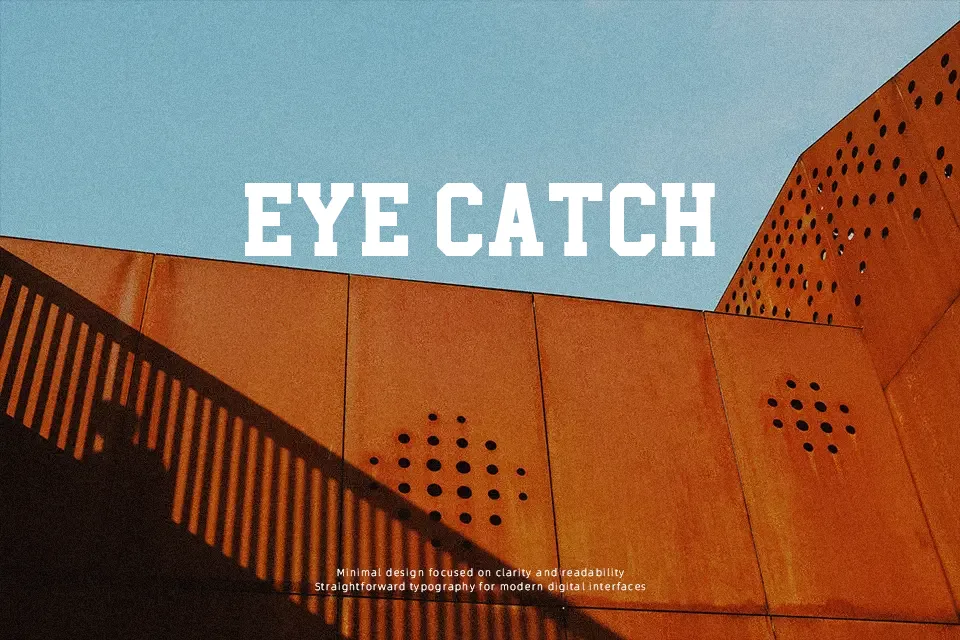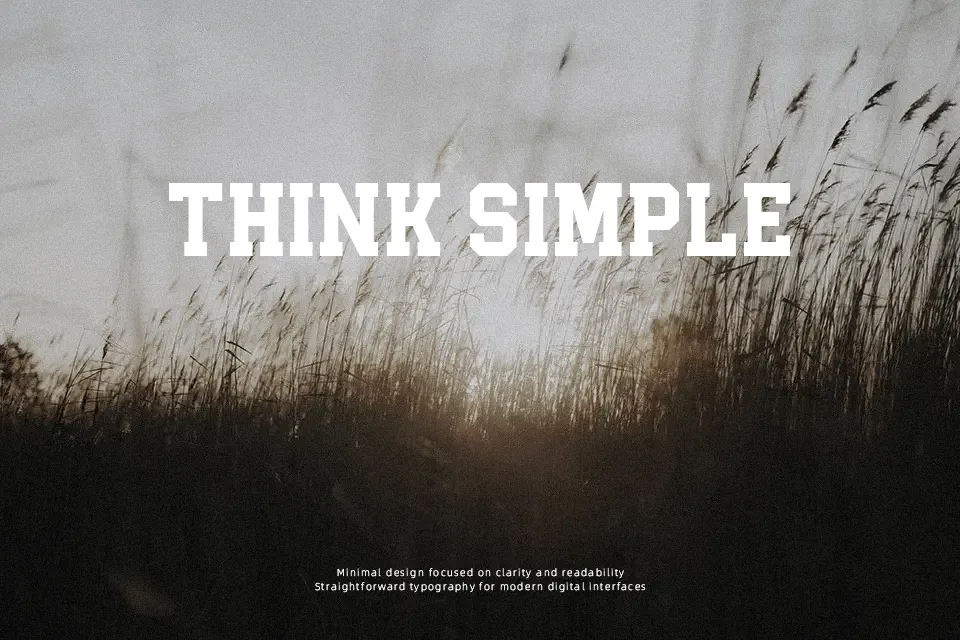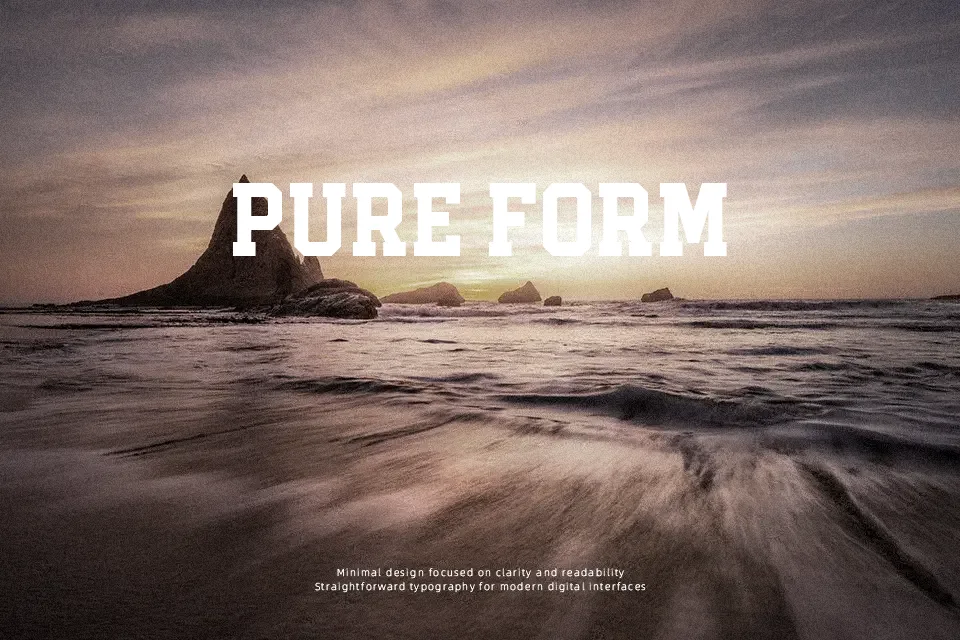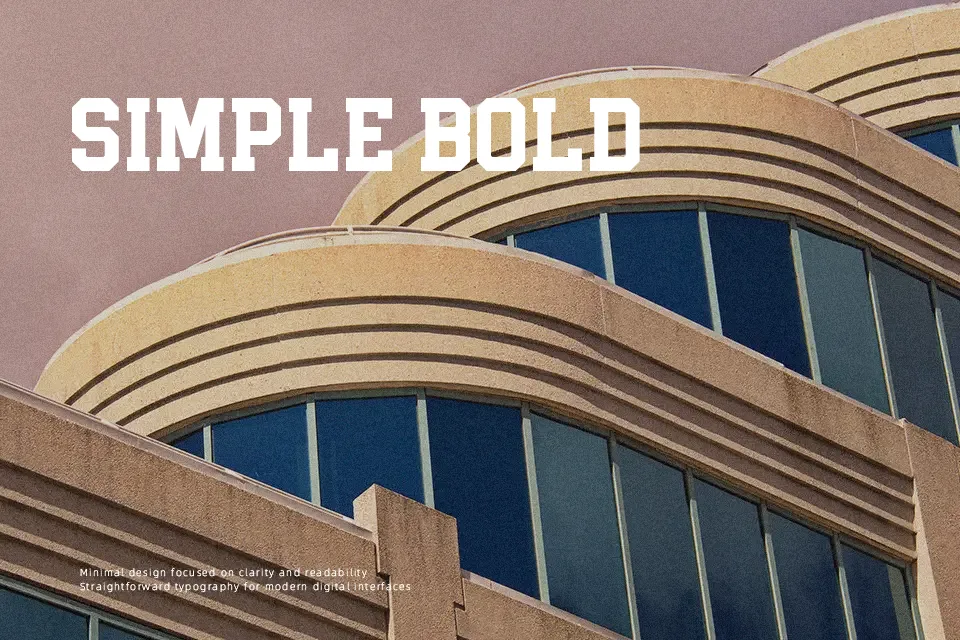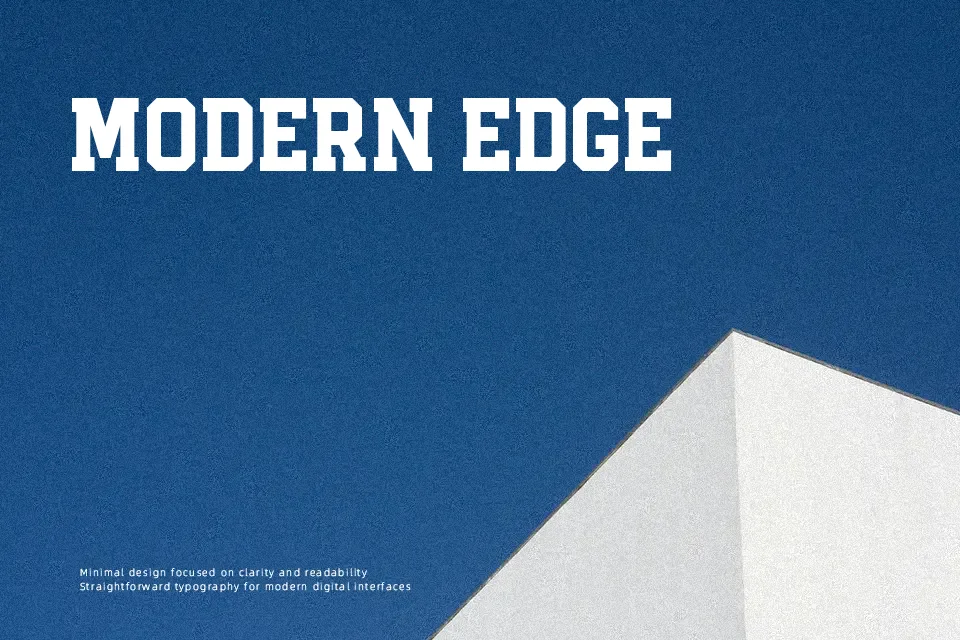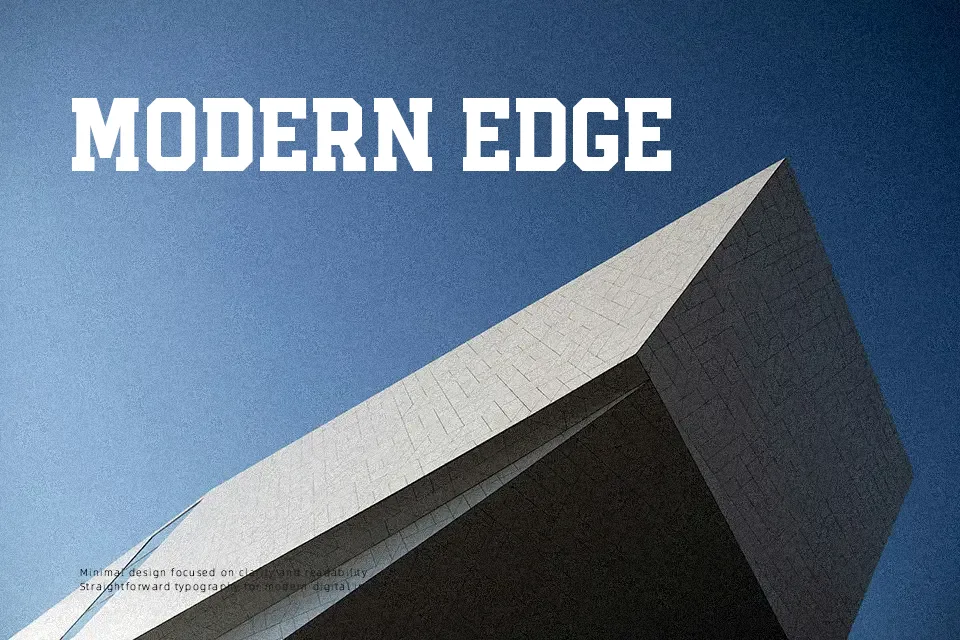
Outright Font
Outright Font performs best when set large, where its heavy slab serif construction and firm, high-impact letterforms can hold a headline together. The characters use substantial strokes, broad proportions, and clear serif details that create a vintage display presence. Spacing appears balanced enough for short words, titles, and stacked layouts, while the strong shapes keep uppercase text visible from a distance. Numerals and punctuation follow the same weighty visual direction. It is a practical choice for poster-scale text and identity work, but its dense forms become less comfortable in small sizes or long reading passages.
Best For: sports event posters,apparel graphics,product packaging titles,retro-style logos
Perfect for headline, logo, and packaging, with a bold and display style.